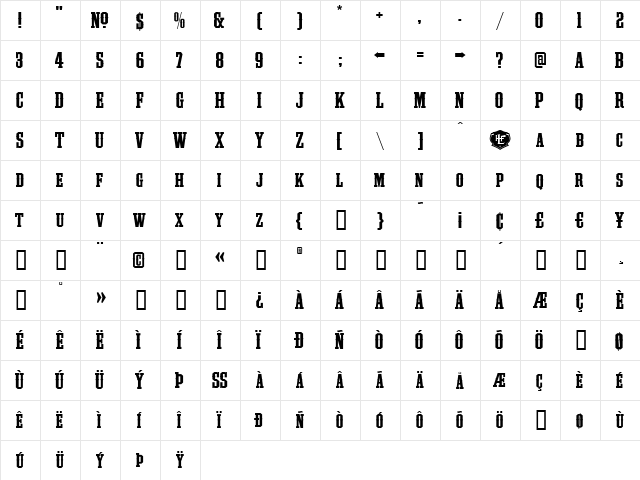
LHF Outlaw REG Roman
Design Context for LHF Outlaw REG Typeface
LHF Outlaw REG takes a measured approach to typography — its balanced proportions and neutral character make it a reliable workhorse for both digital and print work.